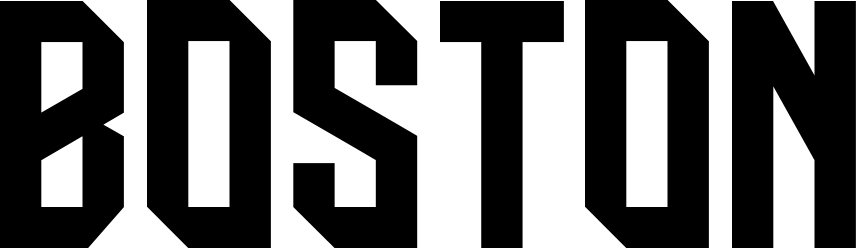
Boston Font
Designed byEotype-Type-Foundry
The Boston is the perfect modern font for any modern design. Its soft lines and geometric shapes are perfect for creating sleek, stylish designs. Whether you’re designing a website, a brochure, or a poster, this modern industrial font will help you create an elegant look that will impress your audience, with its techno, square style. But you have to consider that it does not support lower cases.